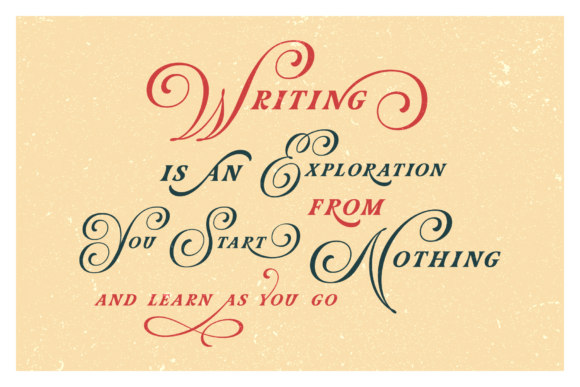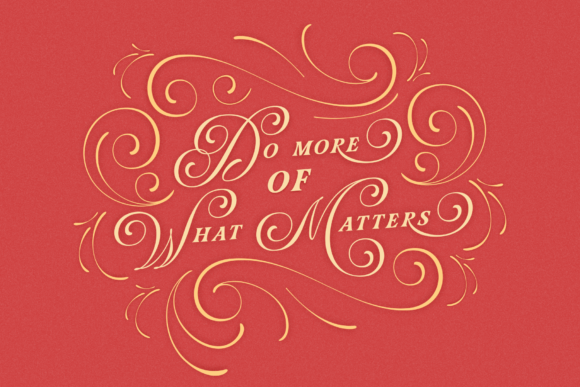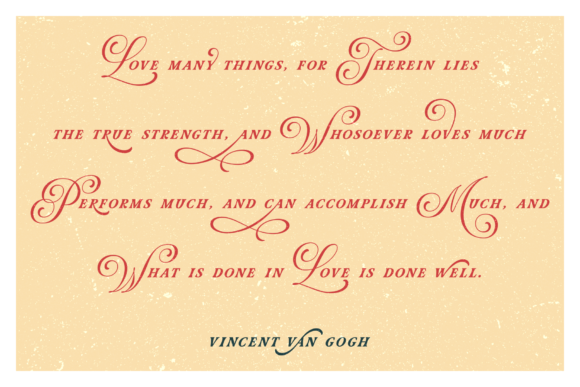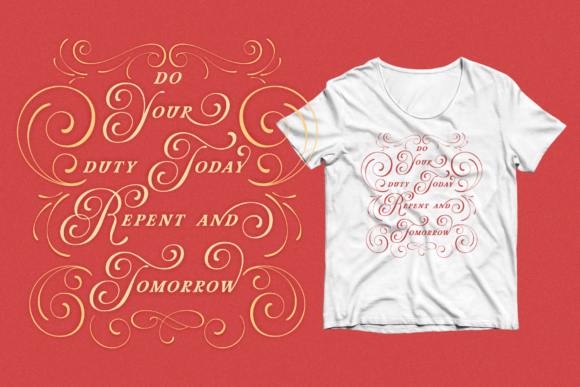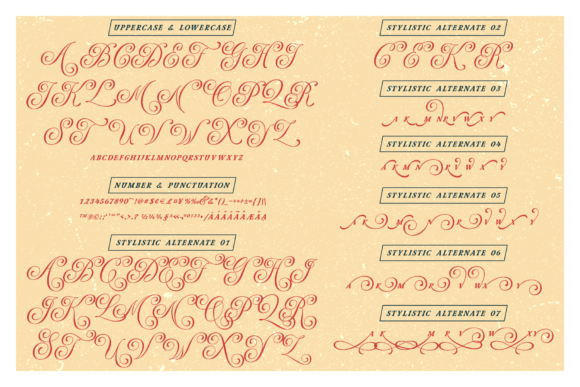
Astria Font: Elevate Your Designs with a Touch of Vintage Elegance
In the world of typography, few fonts manage to capture the essence of vintage calligraphy while still offering a modern twist. Astria Font is one such gem that has been making waves in the design community. Inspired by the elegance of vintage calligraphy, Astria is a stunning handwritten font with a bold twist, designed to add a unique charm to any design idea.
The Story Behind Astria Font
Astria Font is more than just a collection of letters; it’s a reflection of artistry and craftsmanship. Its creation is rooted in the desire to bring back the sophistication and charm of traditional calligraphy, adapting it for modern design needs. Each letter in Astria is carefully crafted to exude a sense of luxury and elegance, making it perfect for projects that demand a high level of sophistication.
Key Features of Astria Font
- Handwritten with a Bold Twist: Astria stands out with its bold and confident strokes, yet it retains a friendly and approachable feel.
- Inspired by Vintage Calligraphy: The font draws its inspiration from classic calligraphic styles, offering a sense of nostalgia and timelessness.
- Versatile: Whether you’re working on a logo, a greeting card, or a sophisticated branding project, Astria can adapt to various design needs.
- Easy to Read: Despite its bold nature, Astria maintains clarity and readability, making it suitable for both headings and body text.
Uses of Astria Font
The versatility of Astria Font makes it a valuable addition to any designer’s toolkit. Here are some popular uses:
- Branding and Logos: Create a lasting impression with a logo that exudes elegance and confidence.
- Stationery and Invitations: Add a touch of sophistication to your wedding invitations, business cards, or letterheads.
- Packaging: Stand out on the shelves with packaging designs that are both eye-catching and refined.
- Digital Media: Use Astria in your website headers, social media graphics, or digital advertisements to give them a unique flair.
Tips for Using Astria Font Effectively
To maximize the impact of Astria Font in your designs, consider the following tips:
- Pair it with Simpler Fonts: For optimal readability, pair Astria with simpler, sans-serif fonts for body text or headings.
- Experiment with Colors: While Astria looks stunning in black or dark colors, don’t be afraid to experiment with vibrant hues to match your brand’s personality.
- Play with Sizes: Utilize different sizes to create a hierarchy in your design, making it more engaging and visually appealing.
Astria Font is a remarkable addition to the world of typography, offering a perfect blend of vintage charm and modern boldness. Its versatility, elegance, and readability make it an excellent choice for designers and crafters looking to elevate their projects. Whether you’re aiming to create a stunning brand identity, an elegant invitation, or an eye-catching advertisement, Astria Font is sure to bring your design ideas to life with its unique charm.
Embrace the beauty of vintage calligraphy with a modern twist by incorporating Astria Font into your next project. Experience how this stunning handwritten font can transform your designs, making them more captivating and memorable.